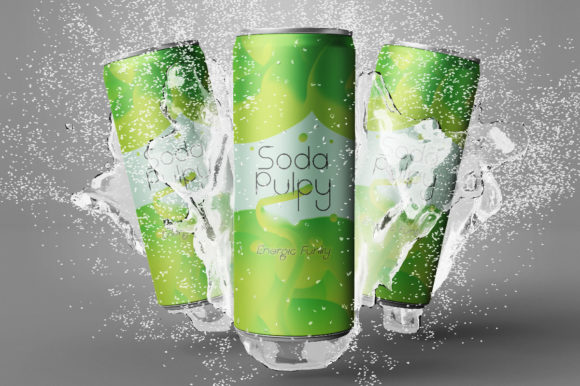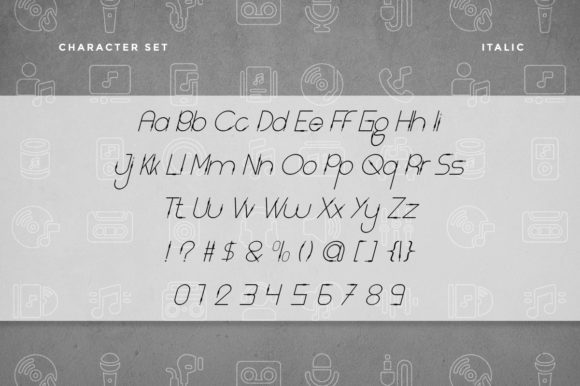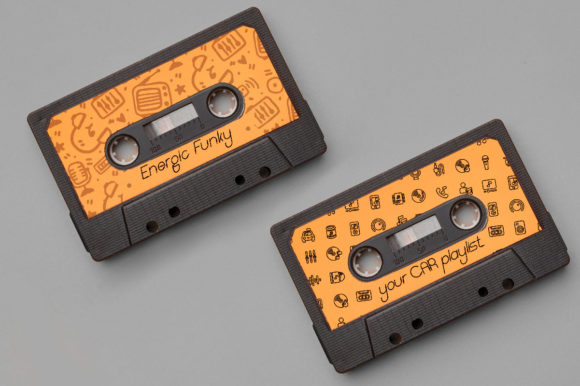
Introduction to Light Cable Font
Have you ever been in the midst of a creative project, pouring over fonts and designs, and suddenly, you stumble upon the perfect match? It’s a feeling of pure excitement and relief, knowing that your design is finally coming together. This is exactly what happened when I discovered the beautiful Light Cable Font.
This dainty and joyful font is more than just a pretty face – it’s a design resource that adds a touch of whimsy and romance to any project. With its unique cable jacks on each character, Light Cable Font is the perfect choice for writing wedding invitations, cards, or any other design that needs a personalized touch. And the best part? It’s available for free download, making it an accessible and high-quality resource for designers of all levels.
Key Features of Light Cable Font
- High-quality design resource suitable for creative projects, including digital art, graphics, and web design.
- Features a transparent background, making it easy to customize and pair with various design elements.
- Designed to be highly legible, even at small font sizes, making it ideal for use in a wide range of creative projects.
- Designed with a modern aesthetic, making it perfect for use in contemporary design projects that require a clean and minimalist look.
- Includes a range of characters, including uppercase and lowercase letters, numbers, and punctuation marks, making it a versatile design resource.
Honest Review: Light Cable Font
I recently had the chance to work with the Light Cable Font, and I must say it’s been a game-changer for my creative projects. The font’s clean and modern design makes it perfect for a variety of applications, from web design to print materials.
- ✨ High quality design: The Light Cable Font has a crisp and clear appearance, making it perfect for both digital and print use.
- ✨ Versatile: The font’s clean design makes it suitable for a wide range of creative projects, from branding to advertising.
- ⚠️ Limited character set: The font only includes a limited set of characters, which may not be suitable for projects requiring a wide range of languages or special characters.
- ⚠️ No transparent background option: While the font itself is perfect for use on a transparent background, it would be great to have the option to download a version with a transparent background for more seamless integration.
Overall, I’m really impressed with the Light Cable Font. It’s a high-quality design resource that’s perfect for designers working on creative projects. While there are a few limitations, the benefits far outweigh the drawbacks.
Use the Light Cable Font on a transparent background to create a clean and minimalist design. Experiment with different font sizes and colors to get the most out of it.
The Light Cable Font is perfect for:
- Branding and logo design.
- Graphic design and visual identity.
- Presentations and documents.
Alternatives to Light Cable Font